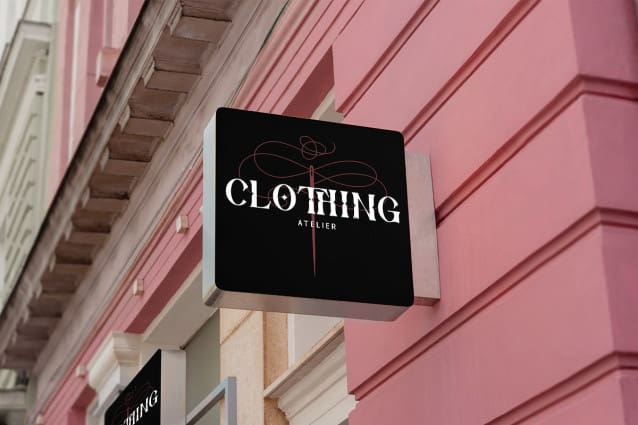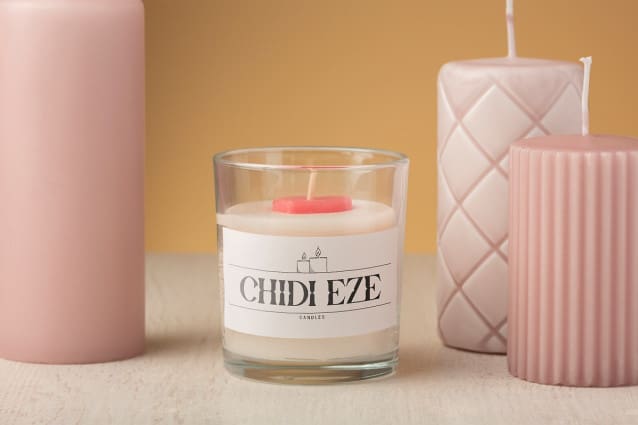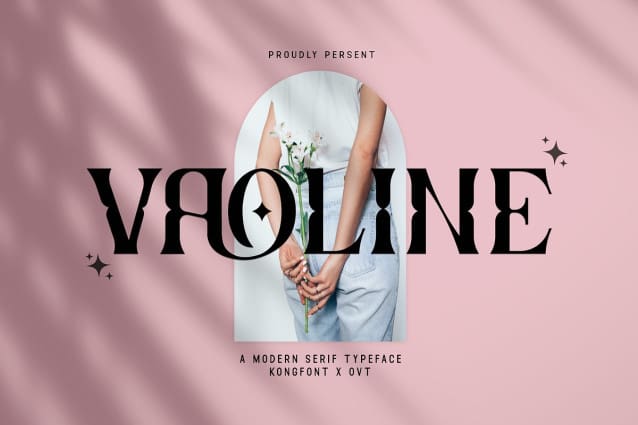
Vaoline Font
Vaoline Font, a modern serif typeface designed to elevate your typography to new heights. With its sleek lines and balanced proportions, Vaoline exudes sophistication and versatility, making it the perfect choice for a wide range of design projects.
Crafted with meticulous attention to detail, Vaoline Font strikes the perfect balance between classic serifs and contemporary aesthetics. Whether you’re creating editorial layouts, branding materials, or digital designs, this font commands attention and leaves a lasting impression.
Featuring multiple weights and styles, Vaoline Font offers flexibility and adaptability for any design endeavor. Its extensive character set includes alternates, ligatures, and swashes, allowing you to customize your typography with ease and precision.
Elevate your typography with the refined beauty and timeless sophistication of Vaoline.